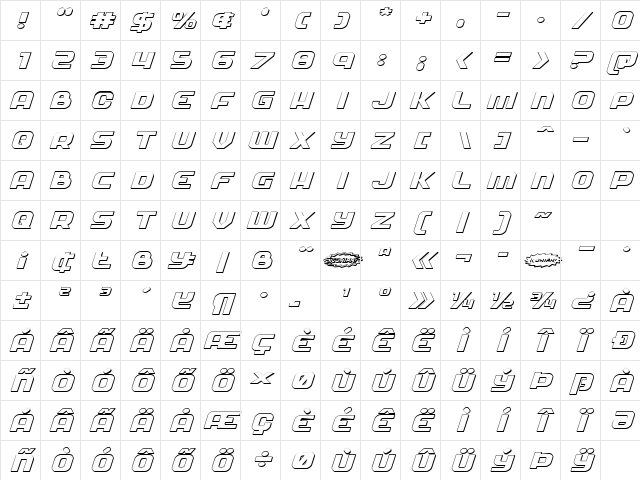
Complete Soldier 3D Expanded Italic glyph index. Displaying only characters natively supported by Soldier 3D Expanded Italic font.
Soldier 3D Expanded Italic has the no-nonsense character of military stencilling and tactical signage, projecting authority and directness. The slanted form adds forward momentum and visual energy.